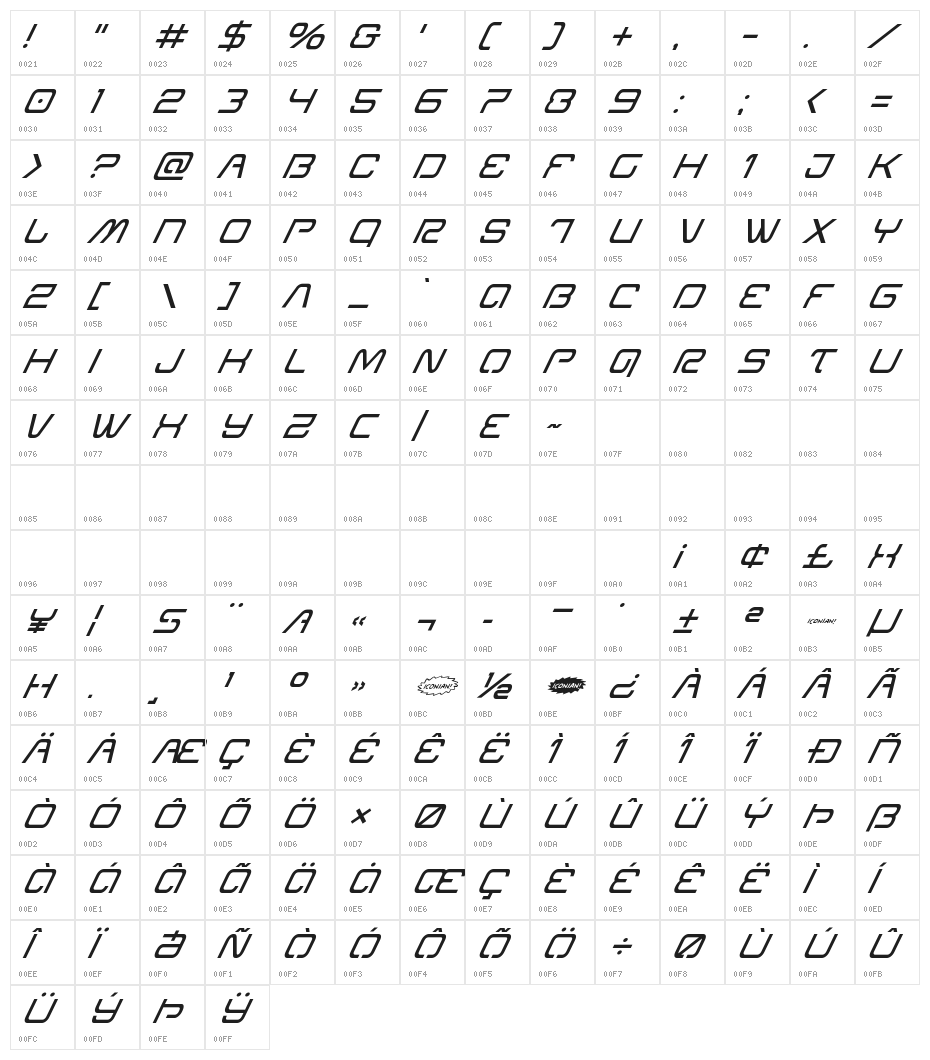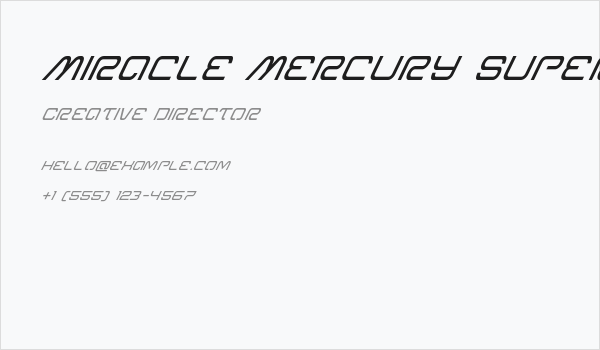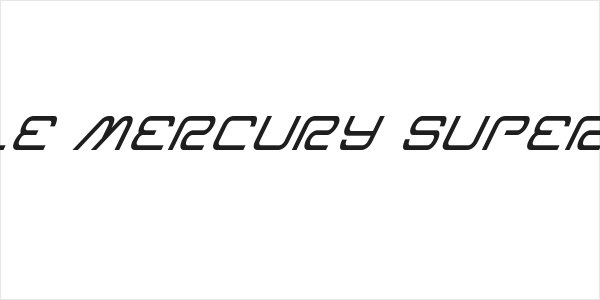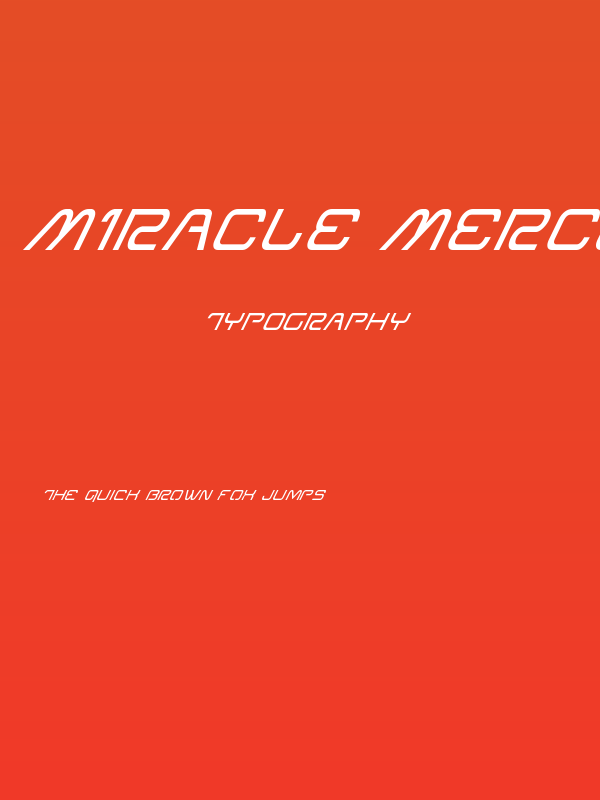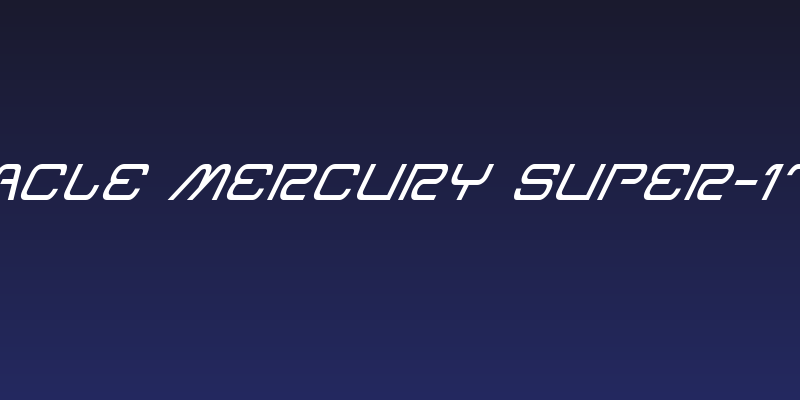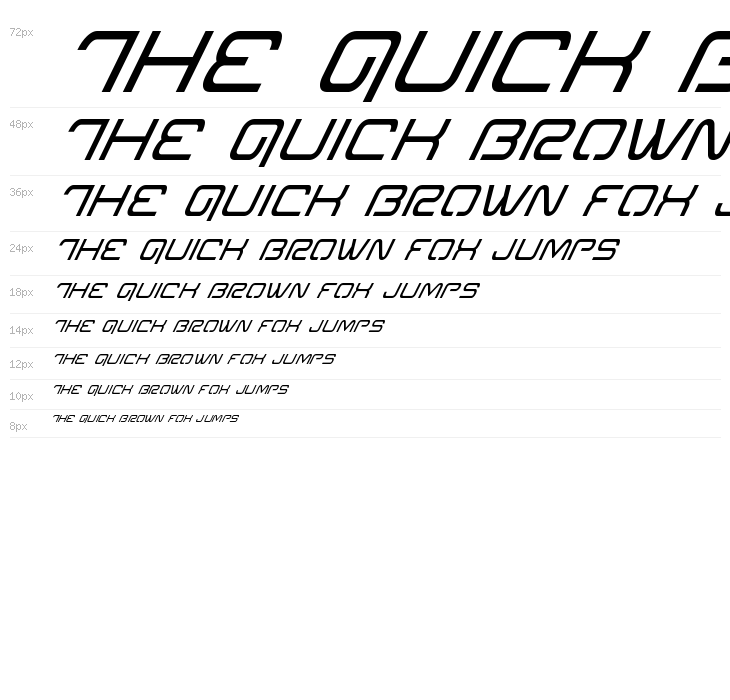
Miracle Mercury Super-Italic Font
Miracle Mercury Super-Italic Description
This font features a sleek and modern design with a distinct italic slant, giving it a dynamic and forward-moving appearance. The characters are crafted with a geometric precision, showcasing clean lines and sharp angles. The uppercase and lowercase letters maintain a consistent style, with a slight variation in the curvature of certain letters to enhance readability. Numbers and special characters are designed to complement the overall aesthetic, ensuring uniformity across all elements. The font's futuristic vibe makes it ideal for projects that require a contemporary and energetic look.
| Use Case | Logos, Headlines, Branding |
| Proposed Projects | Ideal for branding, technology-related designs, sports team logos, and modern advertising campaigns. |